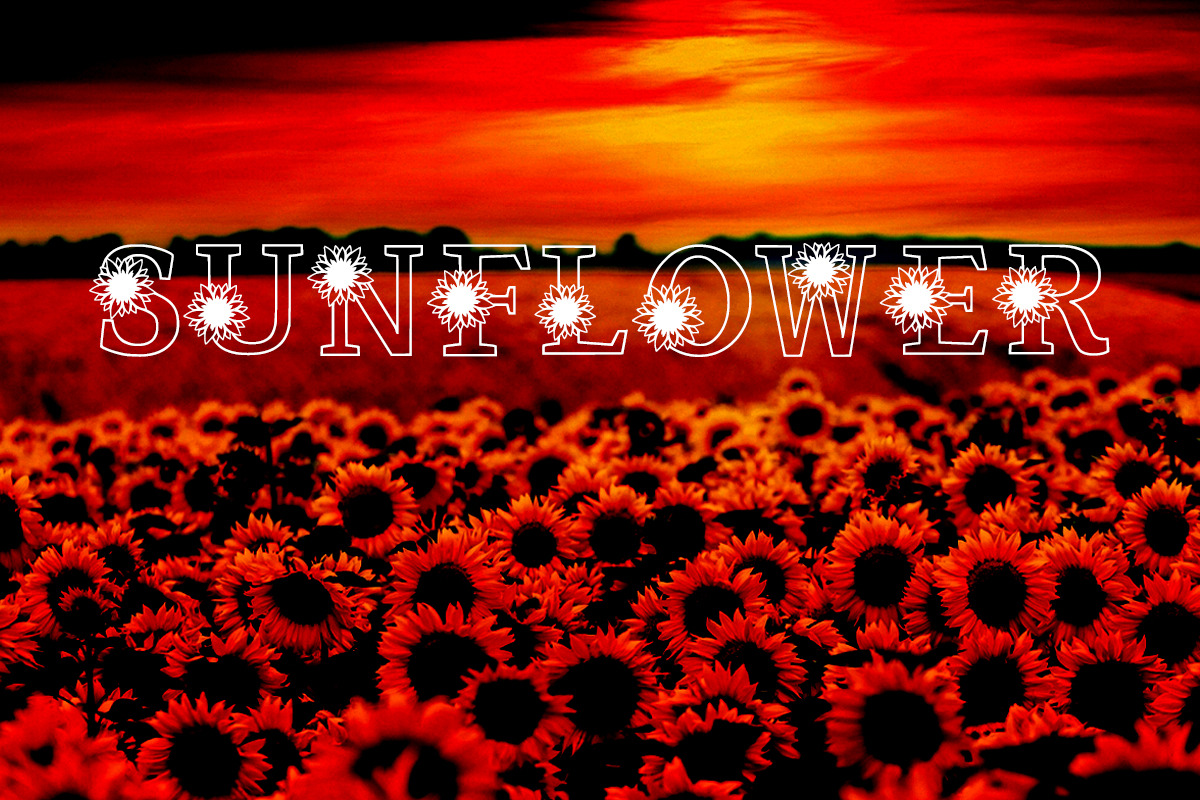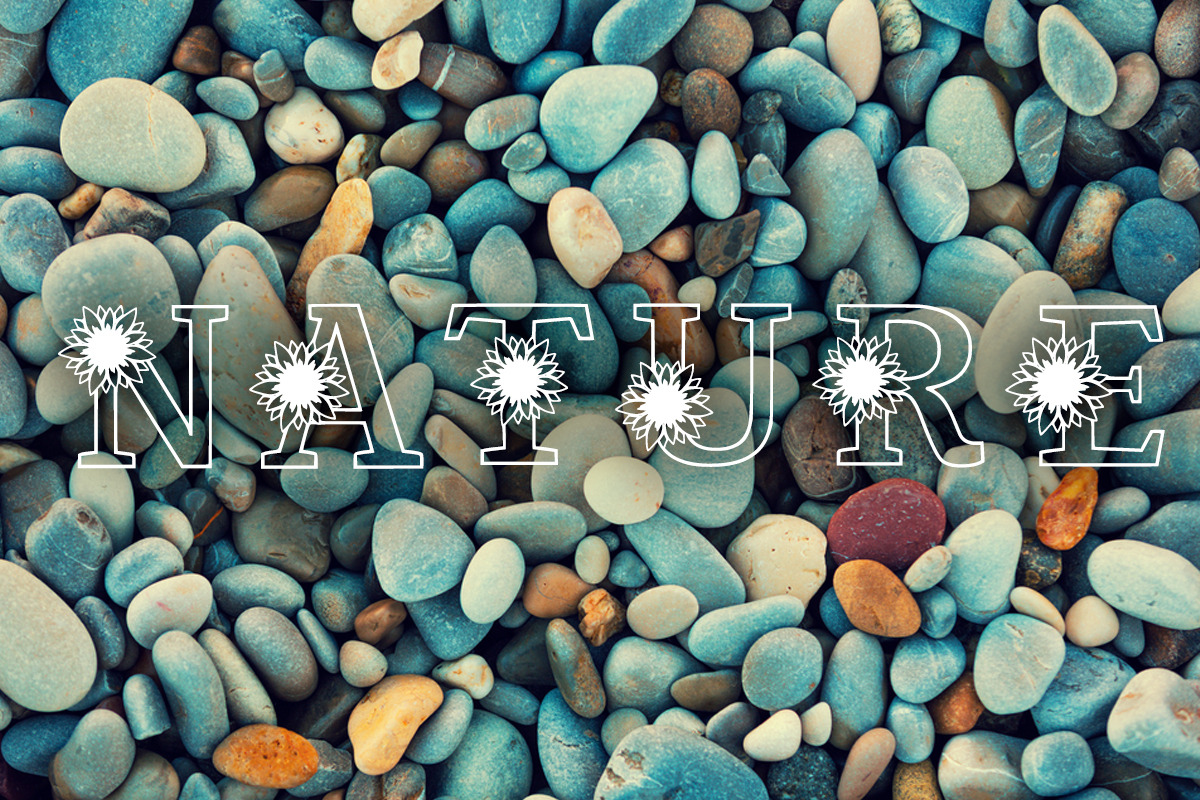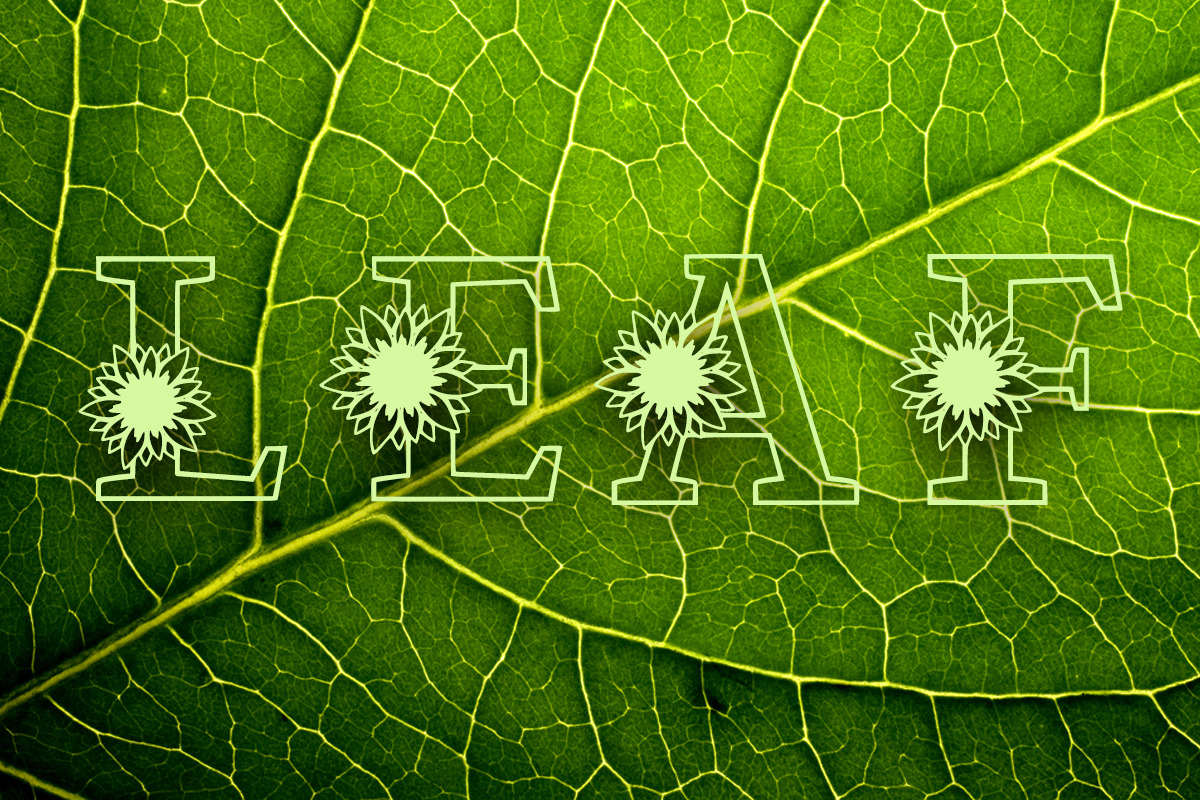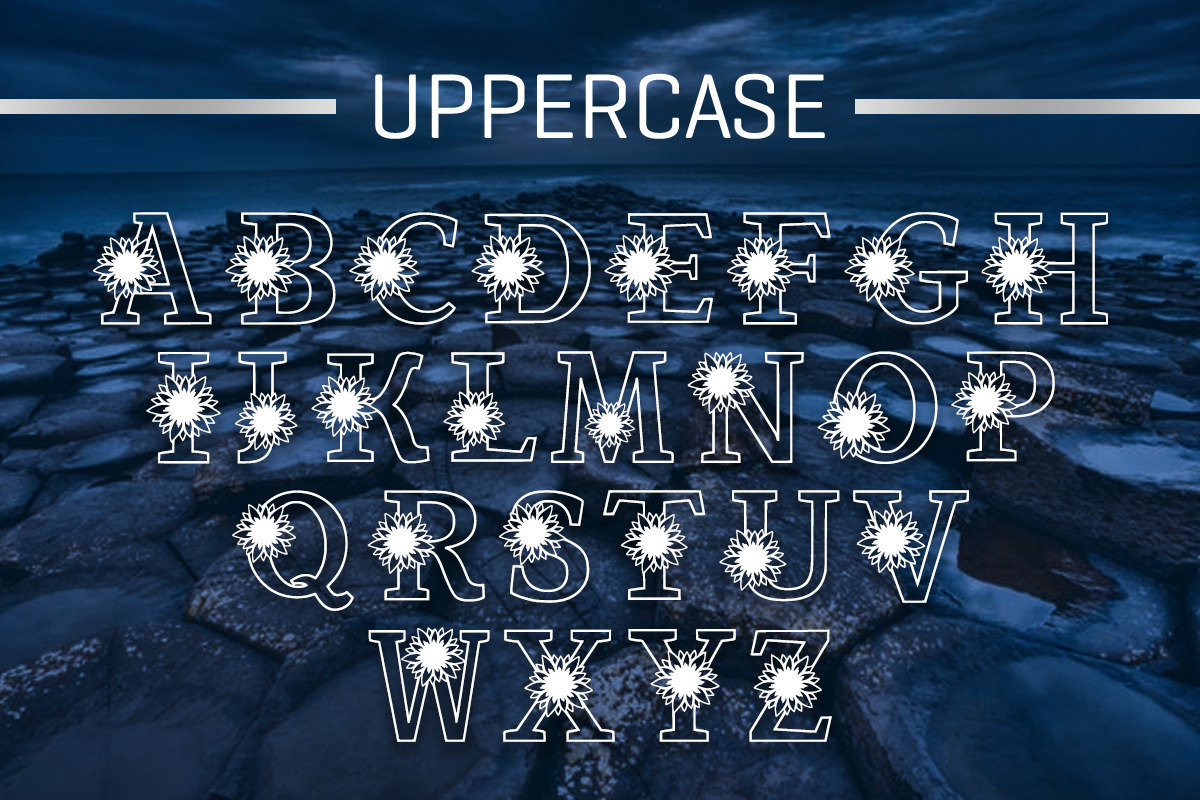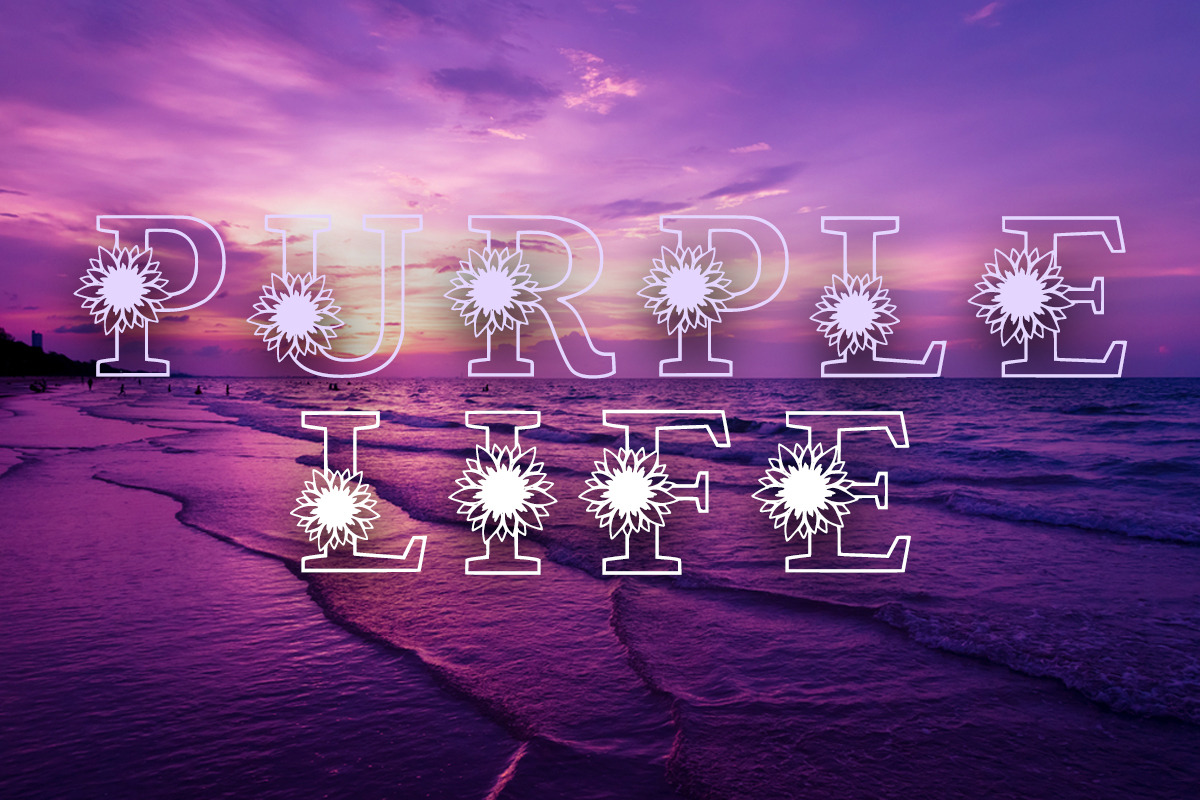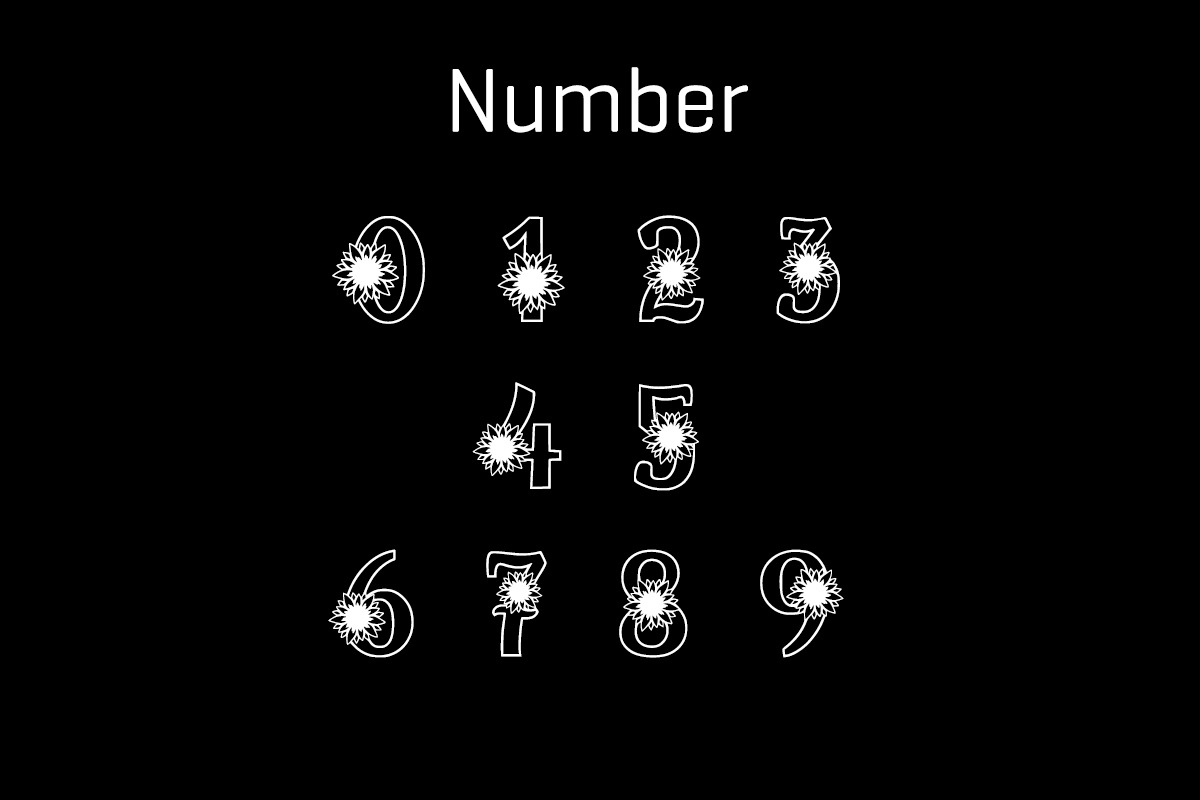
Sunflower Bright
Express your unique style with Sunflower Bright, an eccentric and enjoyable display font crafted with playful irregularities. No matter your project theme, Sunflower Bright stands out as a dynamic addition to typography collection, promising to amplify and invigorate your creative expressions. This font holds the magic to transform your design vision into a distinct visual treat. Embellish your work with Sunflower Bright, where fun meets functionality!